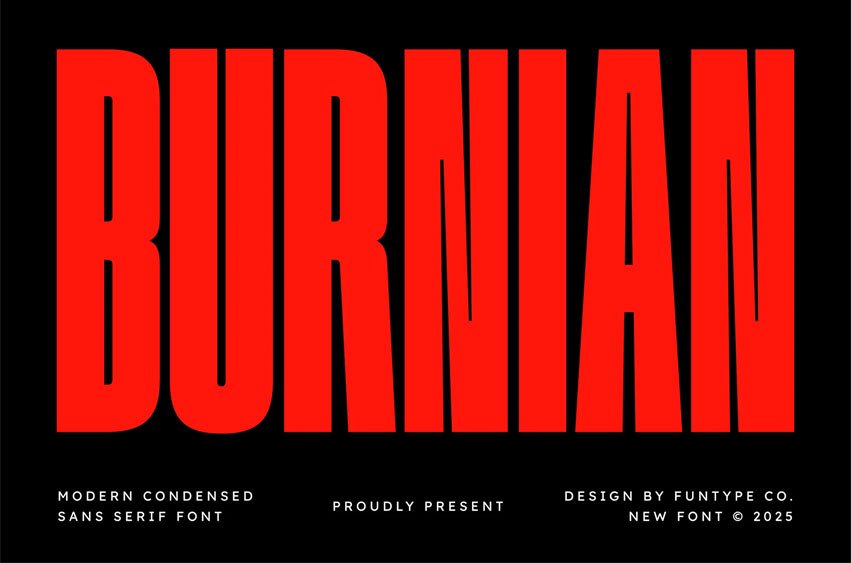
Burnian Font is a high-impact, modern condensed sans serif typeface designed for maximum visual dominance and professional clarity. Engineered with a tall structure and solid geometric forms, Burnian offers a sleek aesthetic that brings a sense of contemporary power and unwavering confidence to any creative project.
This font is the ultimate solution for designers who need a bold, space-efficient typeface for high-pressure visual environments. Whether you are crafting a cinematic movie poster, an aggressive tech brand identity, or striking website headers, Burnian provides a seamless blend of modern flair and commanding presence. Its narrow proportions allow for grand-scale typography even in restricted layouts.
- Bold and Solid Condensed Design
- Modern and Clean Tall Structure
- Optimized for High-Impact Branding & Headlines
- Sleek and Professional Geometric Letterforms
Best Used For: Cinematic posters, tech branding, modern website headers, high-impact advertising, sports design, corporate identities, and bold magazine layouts.